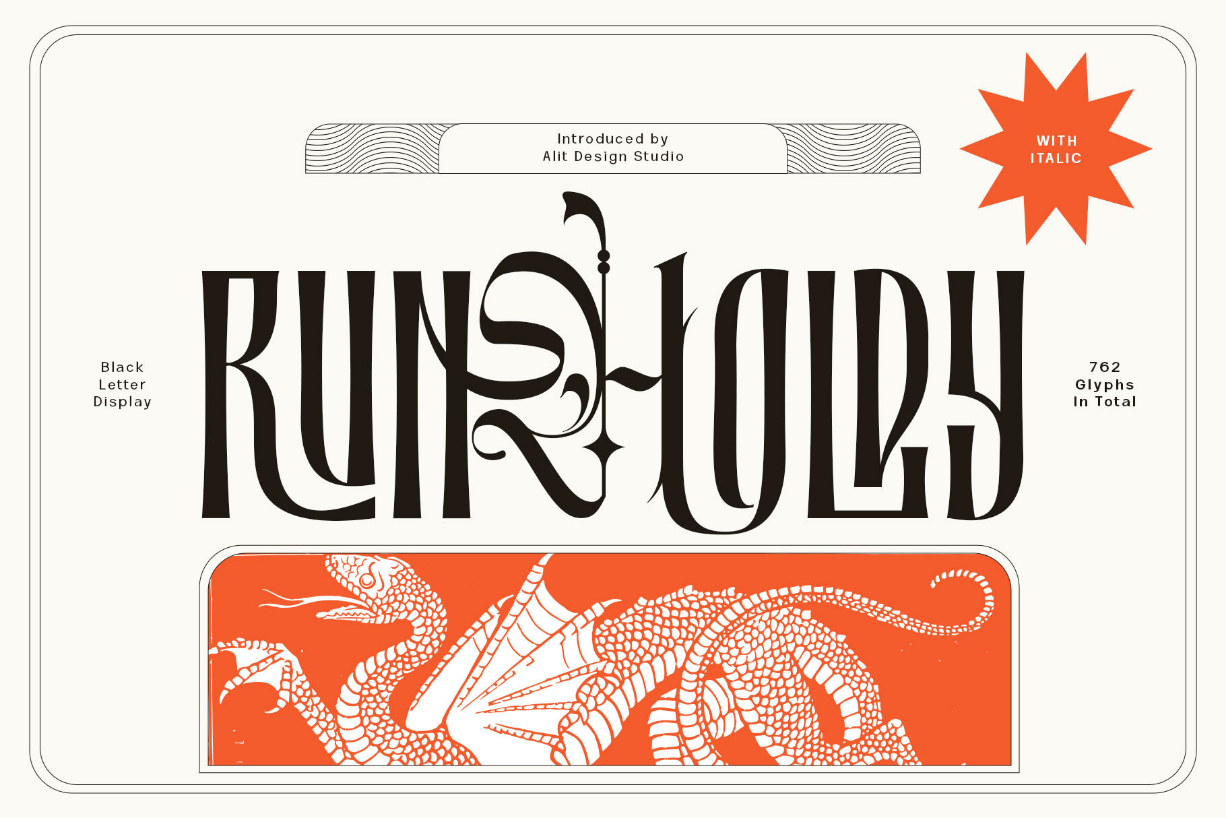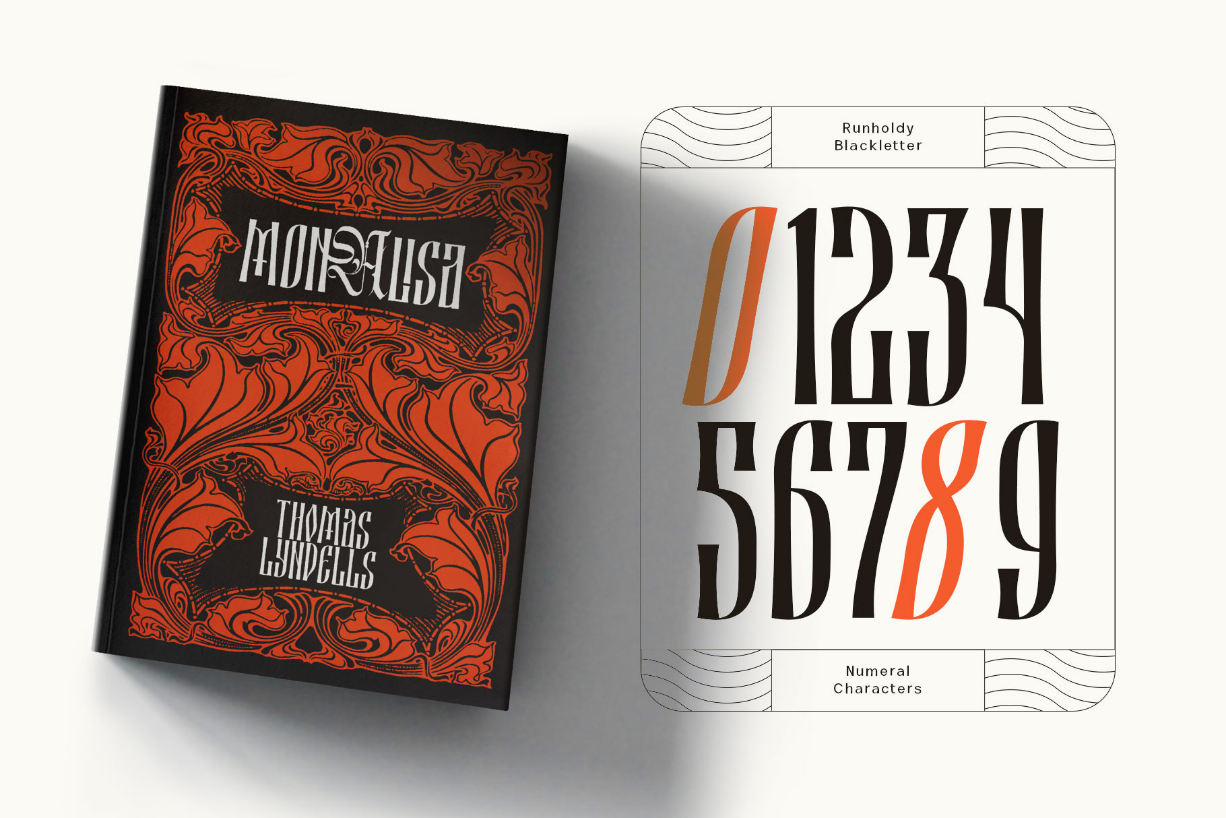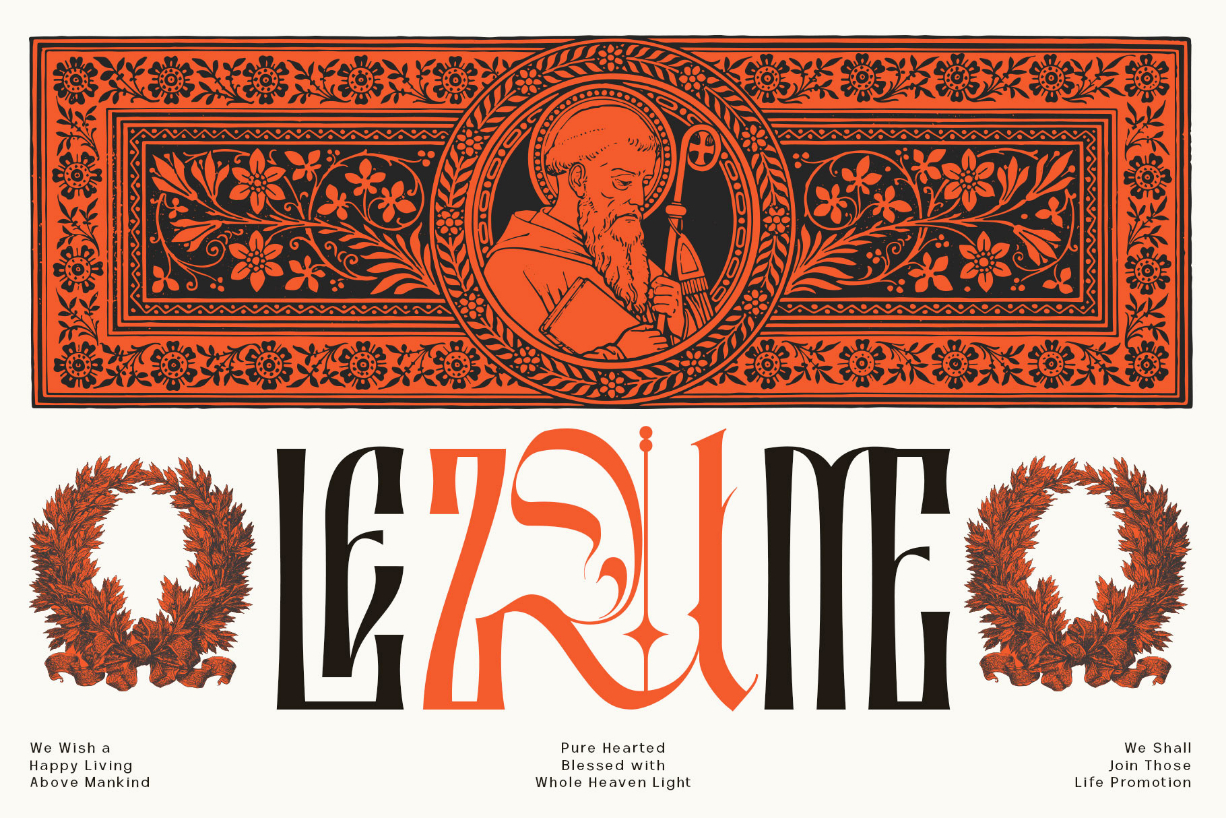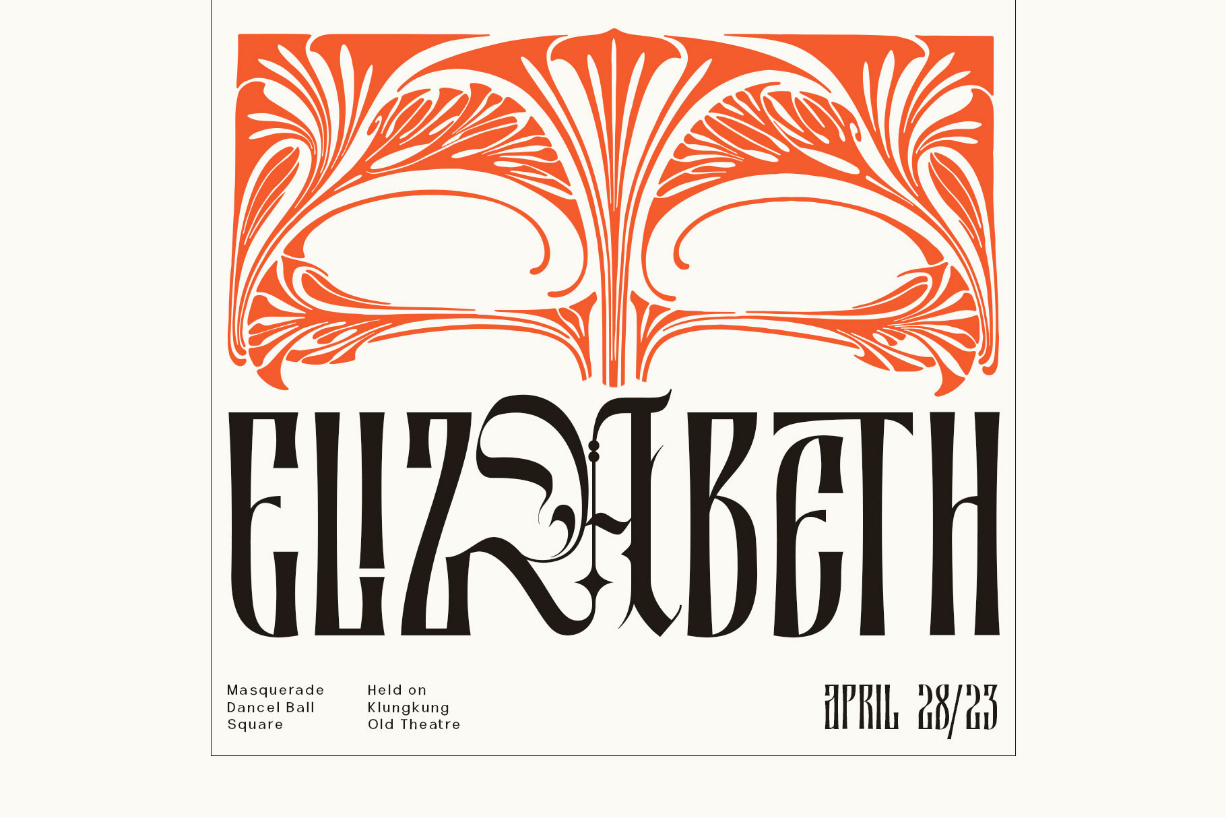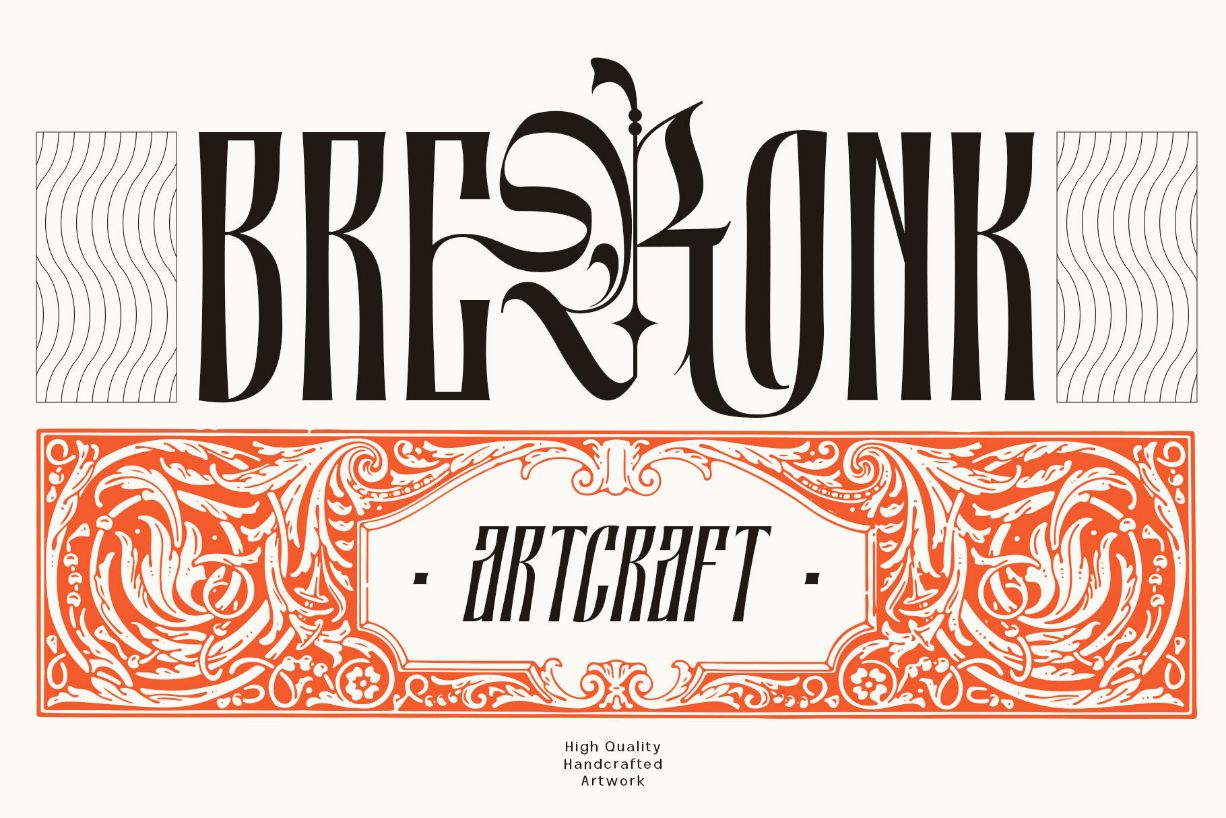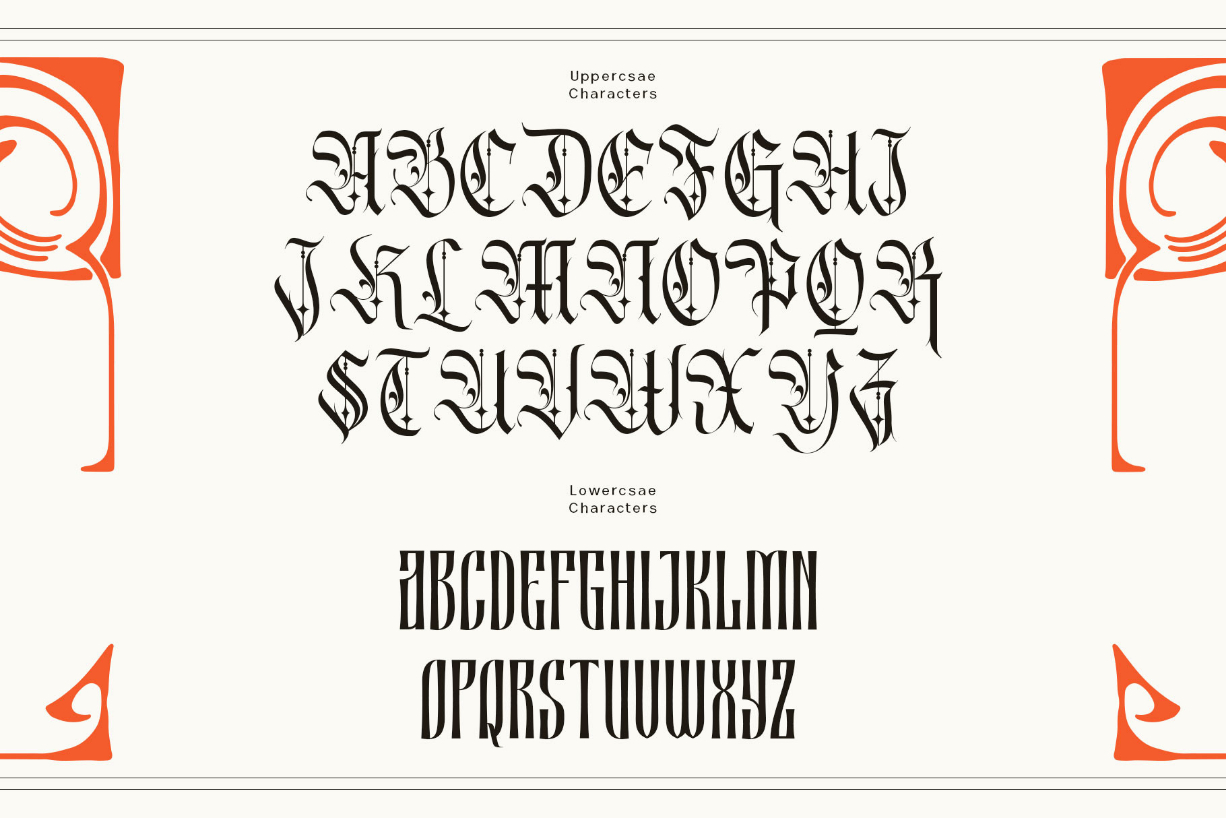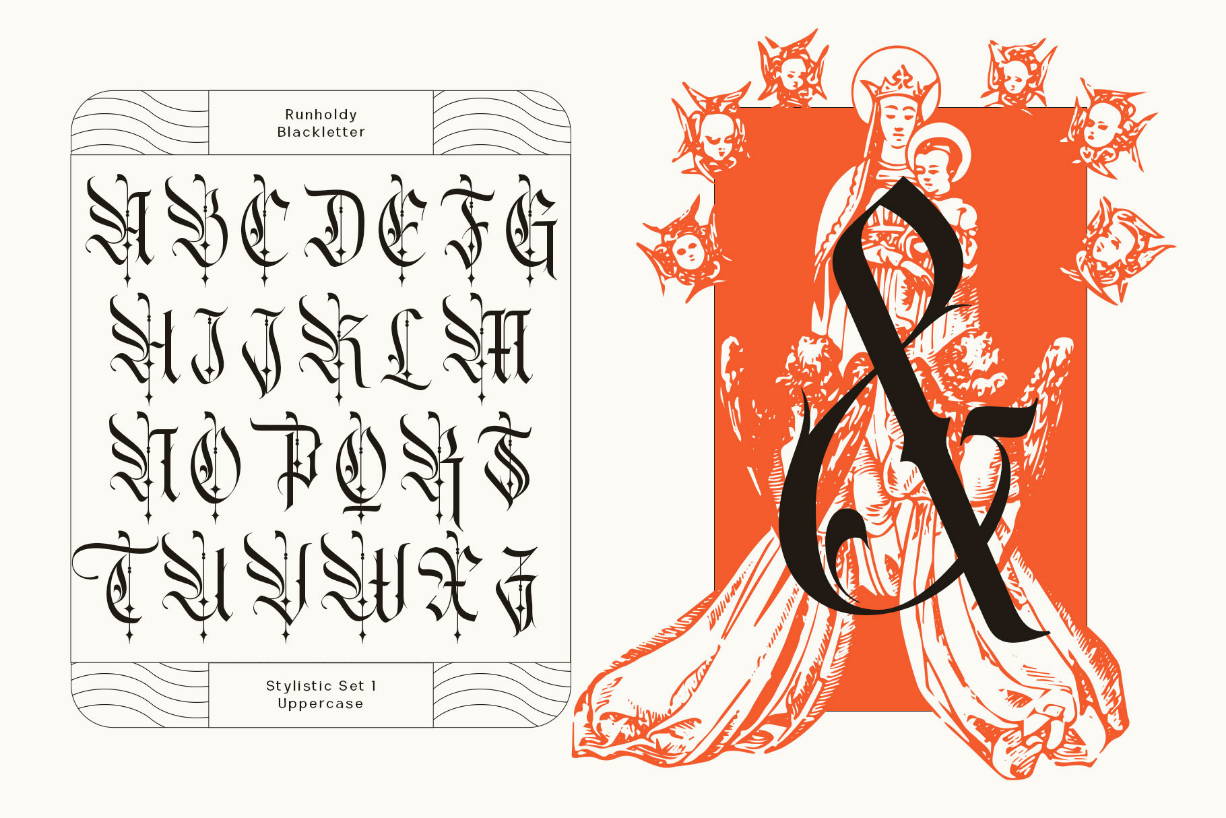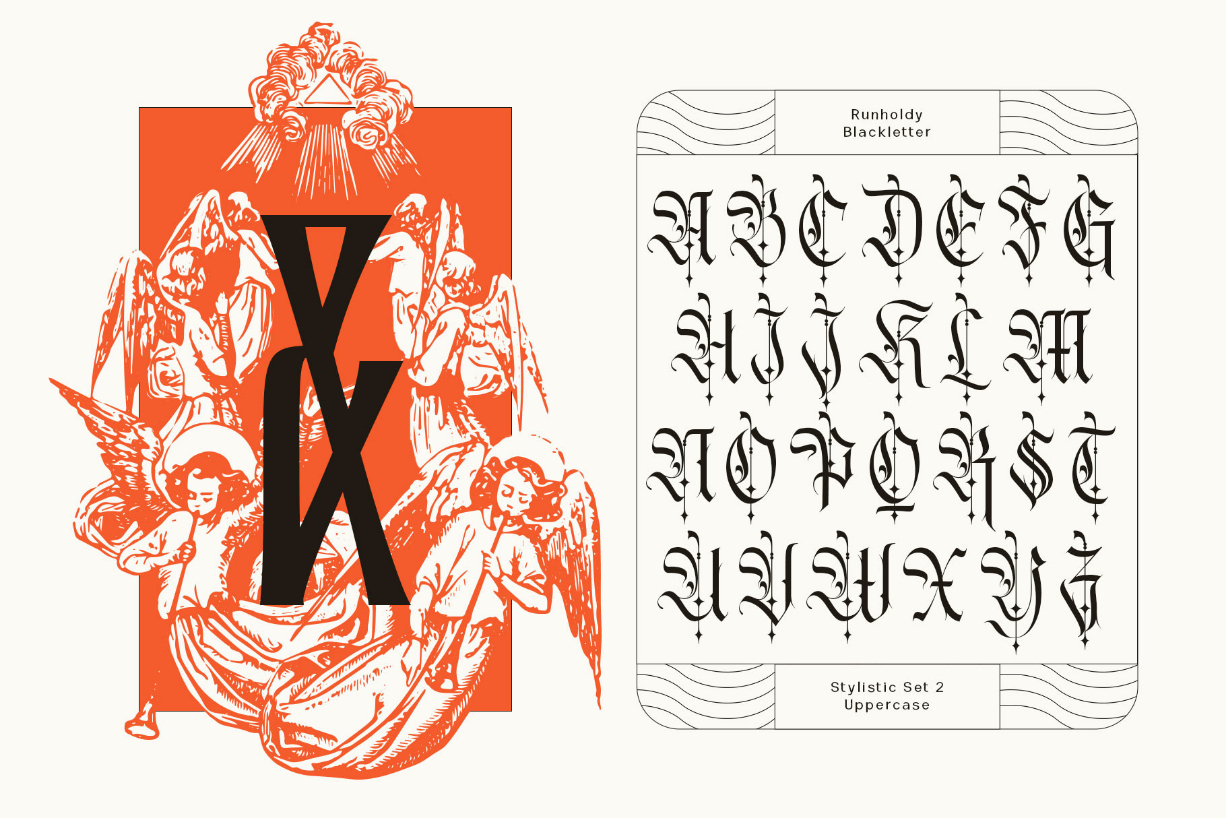
Runholdy Font
About Runholdy Font
Runholdy is a stunning Art-Deco-inspired blackletter font that exudes sophistication and elegance. With its clean, sharp lines and bold, geometric shapes, this font is perfect for creating designs that demand attention. Its unique style blends classic blackletter elements with Art Deco flair, resulting in a font that is both timeless and modern.